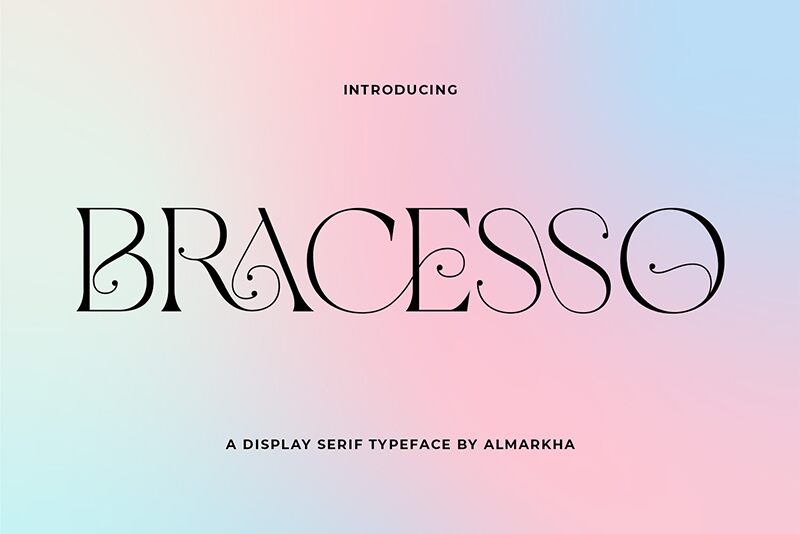
Bracesso, designed by the creative Almarkhatype, stands out as a semi-light display font that exudes a retro charm. With its sleek curves and elegant swashes, Bracesso captures the essence of vintage style while maintaining a modern flair. The font's semi-light weight adds a touch of sophistication, making it ideal for projects that require a balance between impactful visuals and readability.
The aesthetic appeal of Bracesso is undeniable; each letter is crafted with attention to detail, ensuring that the typeface retains its character across various applications. Its suitability for branding, poster design, and editorial work is particularly noteworthy-Bracesso can infuse any creative project with an air of nostalgia blended seamlessly with contemporary design trends.
Overall, Bracesso's unique blend of old-school allure and modern-day elegance positions it as a versatile choice for designers looking to make a distinctive statement in their visual communications.